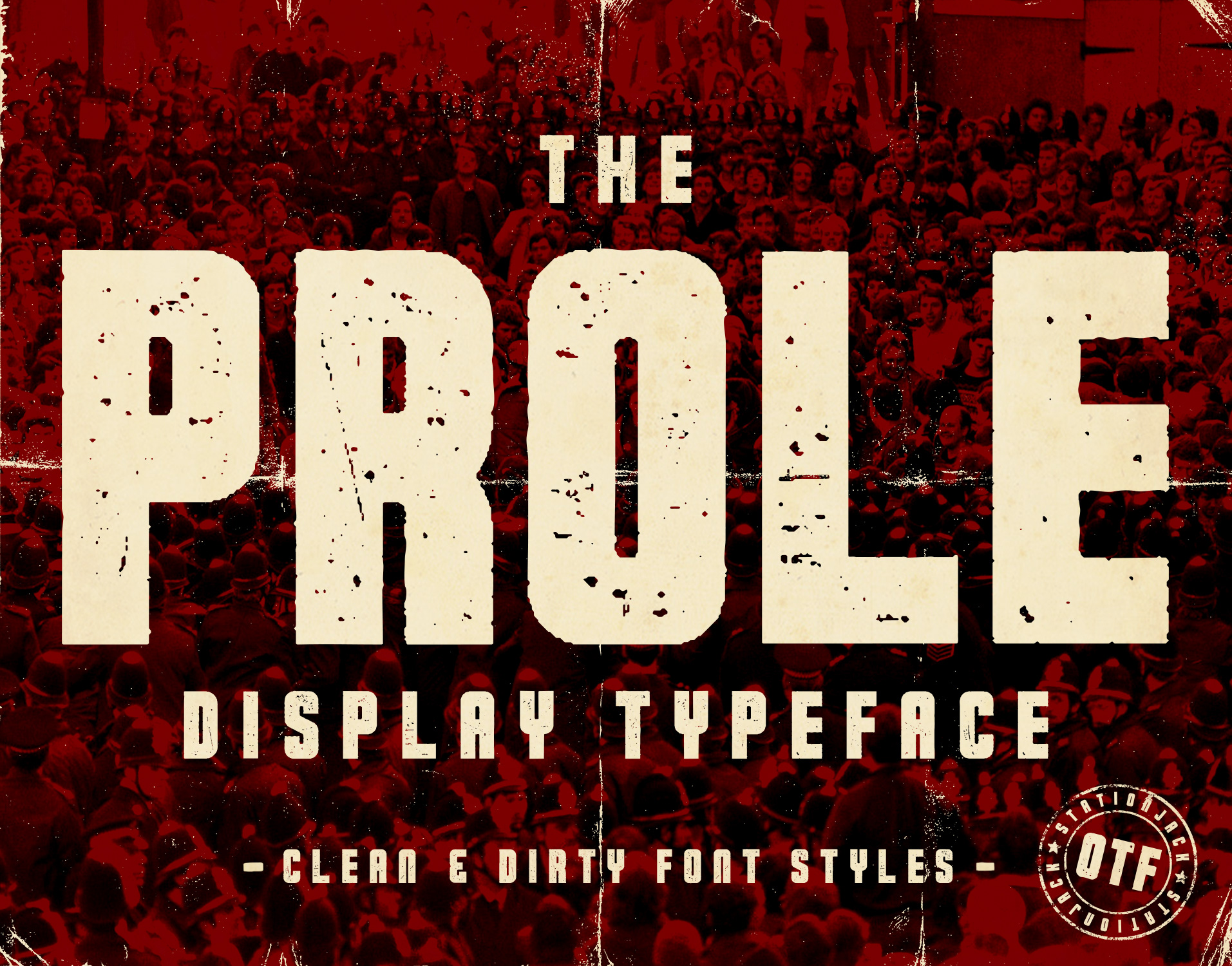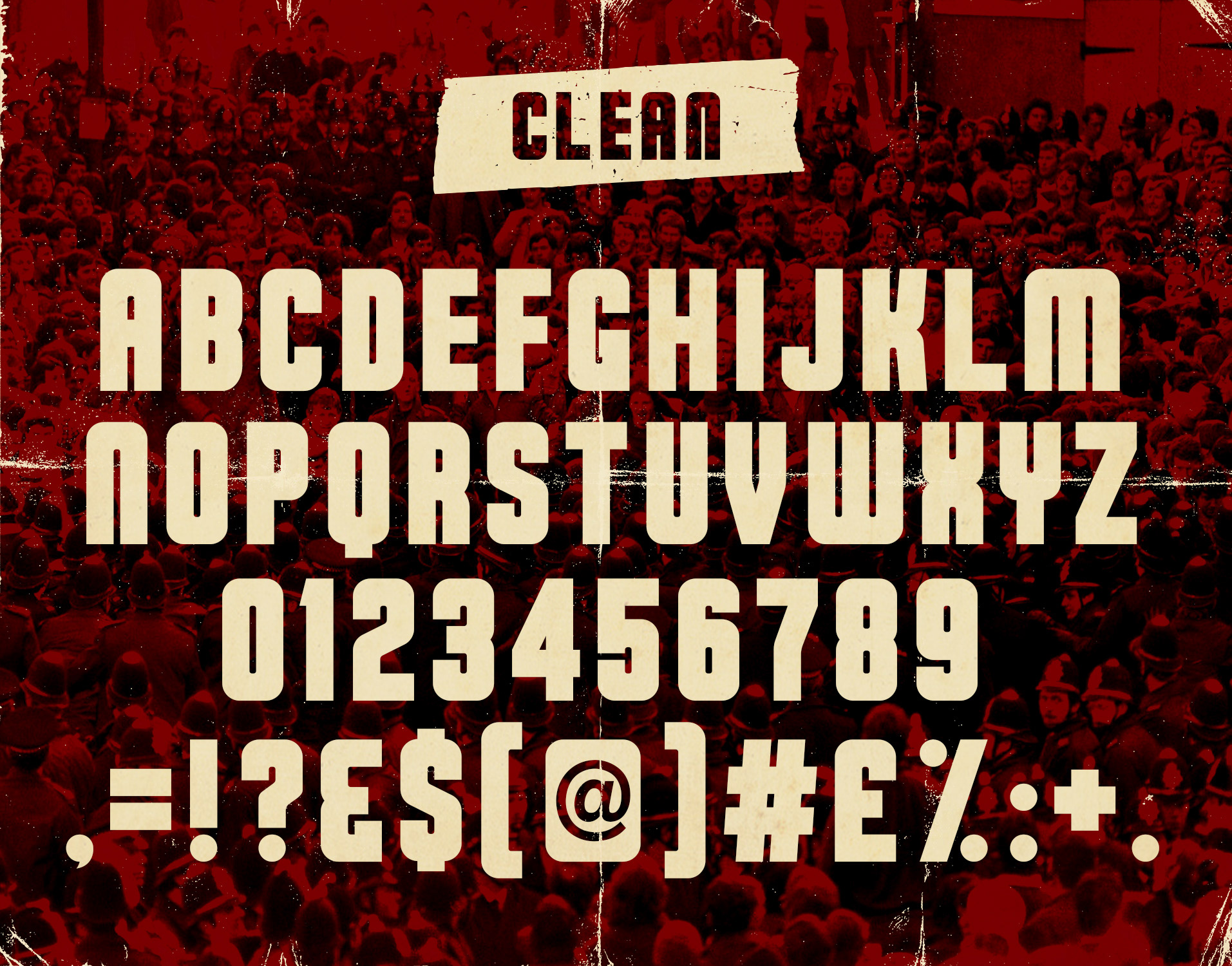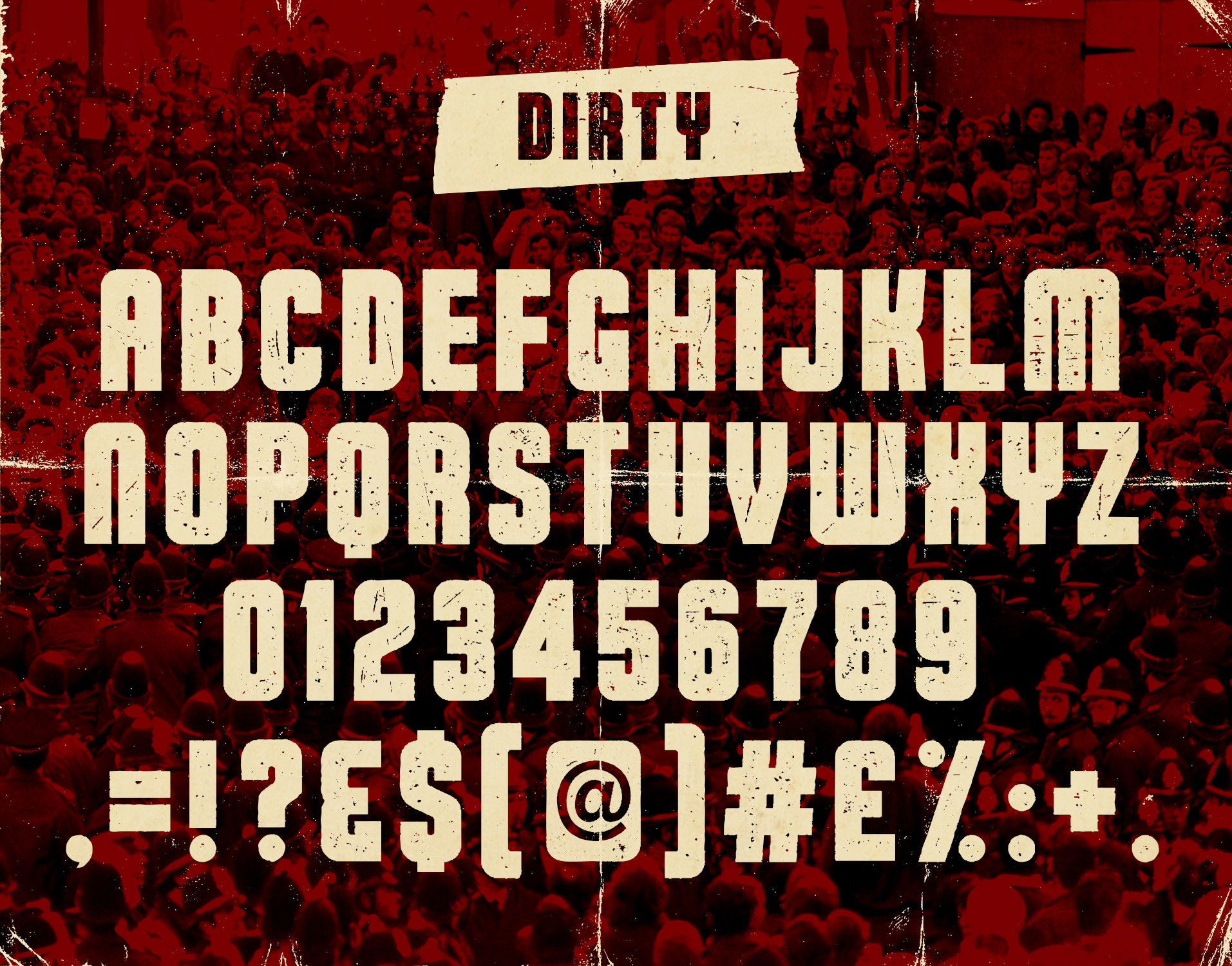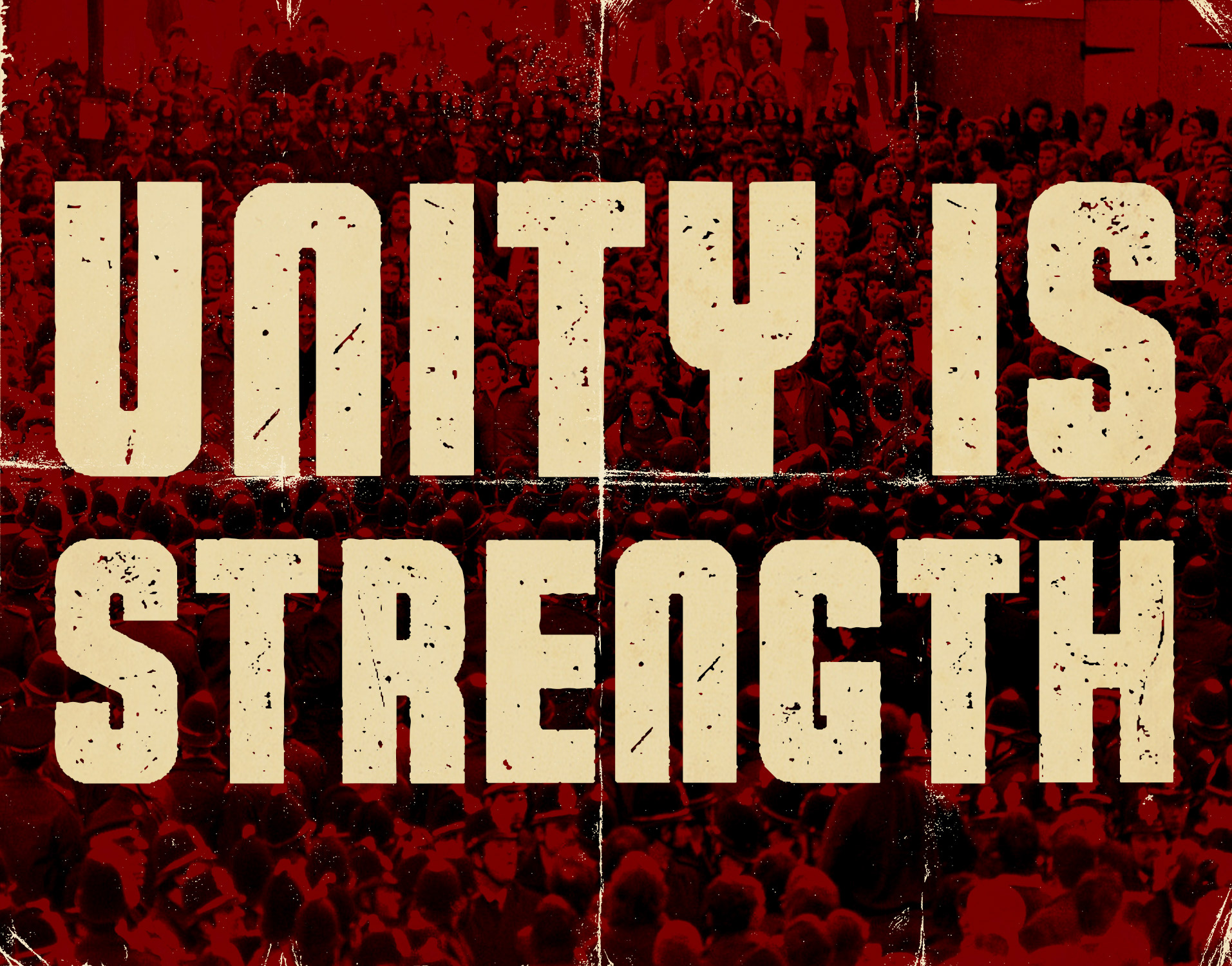
The Prole is a bold sans serif display typeface.This font has two styles including Clean & Dirty. All fonts come with upper case letters, numbers and a selection of punctuation.